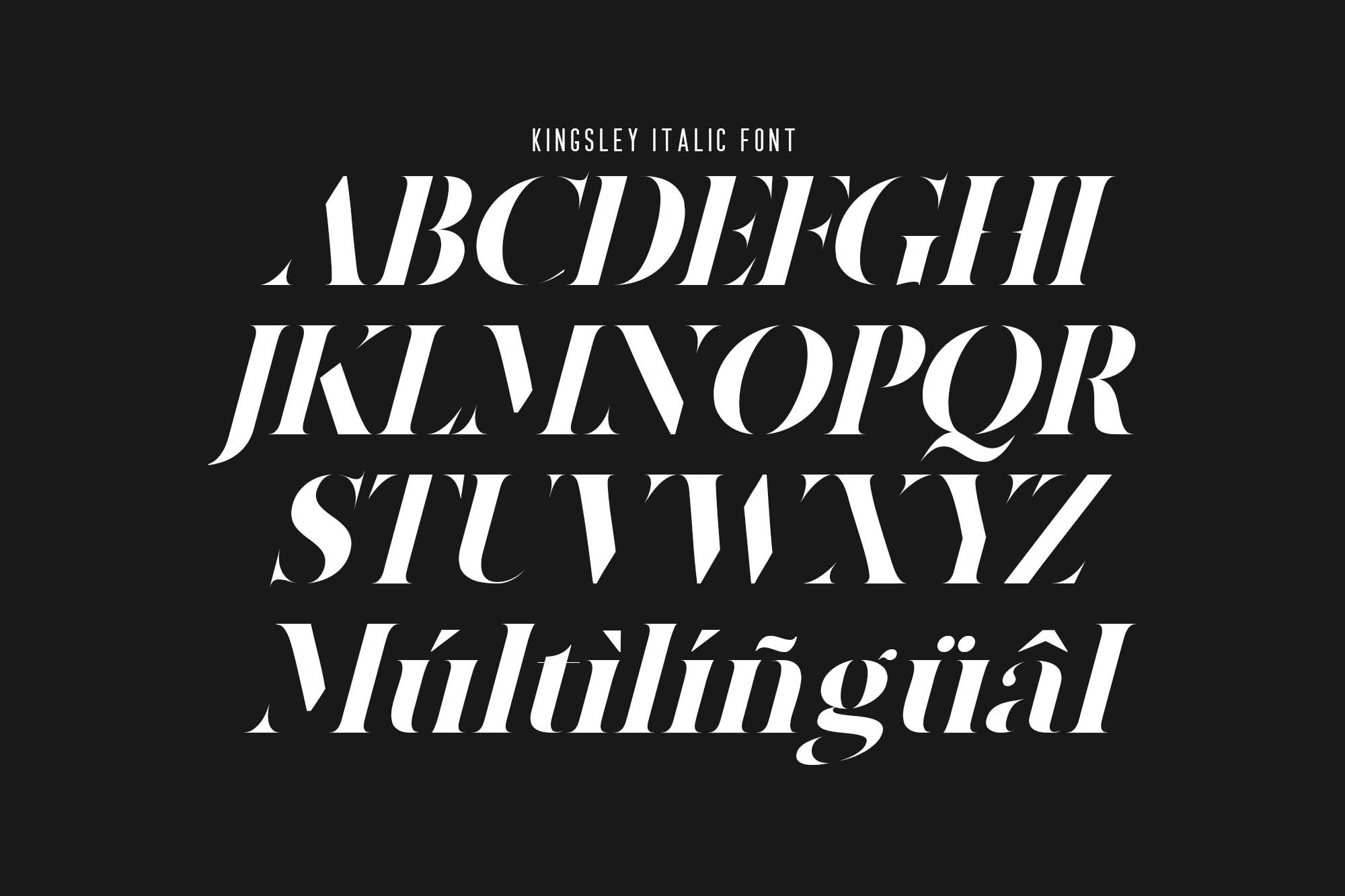
Stencil faces have been made for as long as people have been shipping wooden boxes. Web in this article overview. Web download 242 stencil fonts for windows and mac. 1001 free fonts offers the best collection of quality stencil fonts. Use our free stencil generator to create. Most of the letterforms look a bit like a. This one was designed by gerry powell for. Get creative with stenciled fonts for your next project. Web stencil fonts look like physical stencils, where a portion of the letter is filled with ink or paint and a section of the letter is missing. Web stencil font pairings about description two typefaces called stencil were released in 1937 within a month of each other;
Web in this article overview. This one was designed by gerry powell for. Get creative with stenciled fonts for your next project. Stencil faces have been made for as long as people have been shipping wooden boxes. Web stencil fonts look like physical stencils, where a portion of the letter is filled with ink or paint and a section of the letter is missing. Web stencil font pairings about description two typefaces called stencil were released in 1937 within a month of each other; Web in this article overview. Most of the letterforms look a bit like a. Use our free stencil generator to create. 1001 free fonts offers the best collection of quality stencil fonts. Web download 242 stencil fonts for windows and mac.